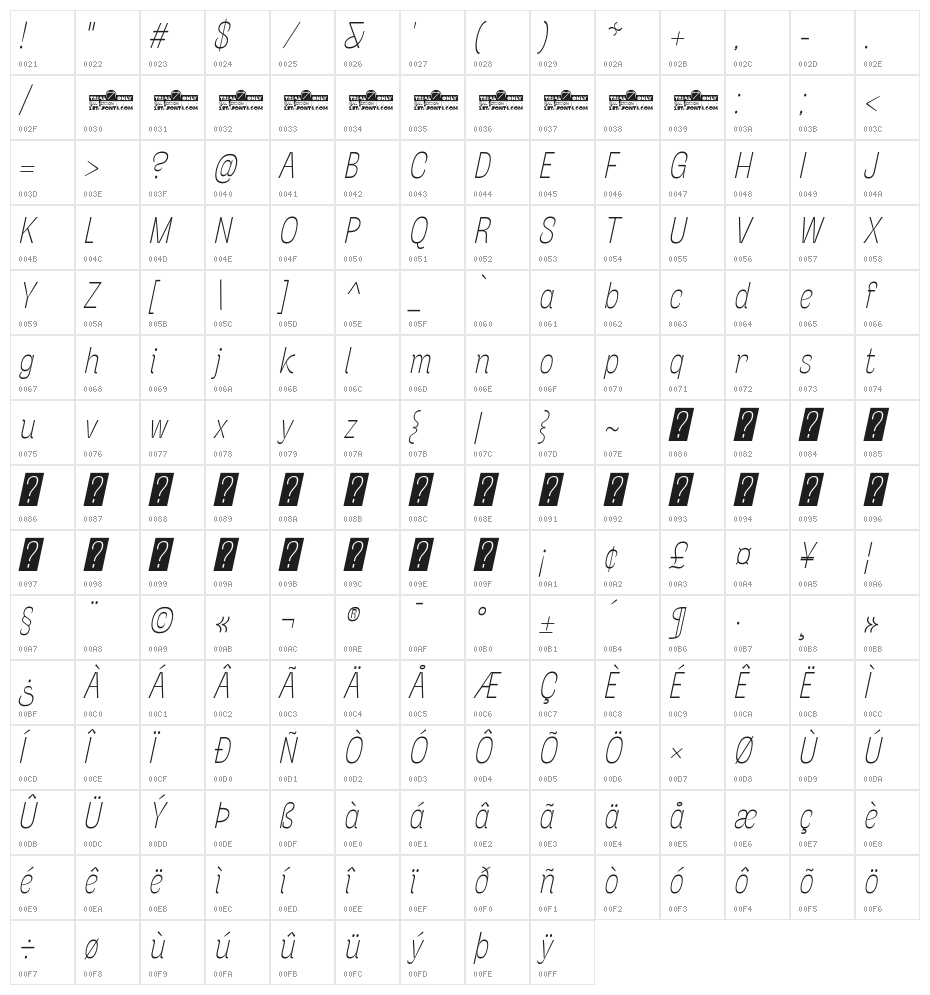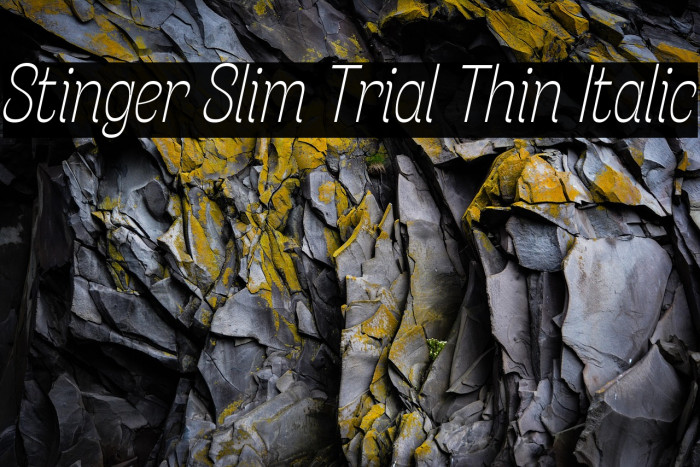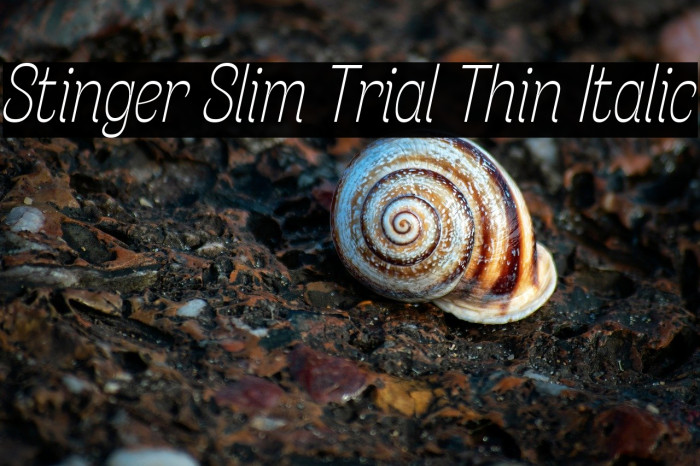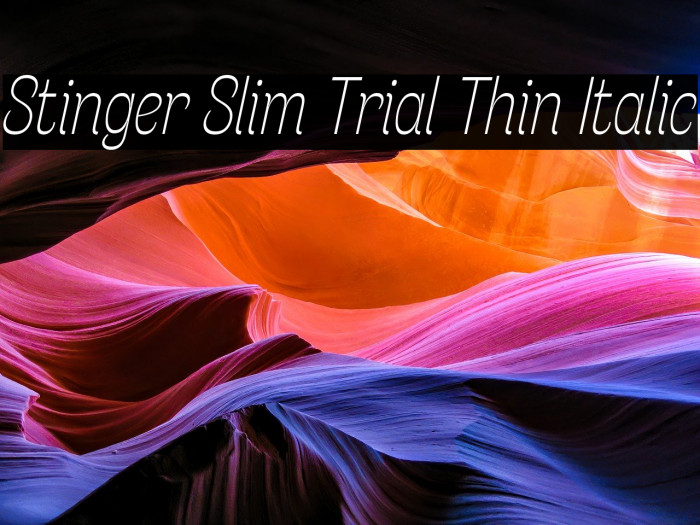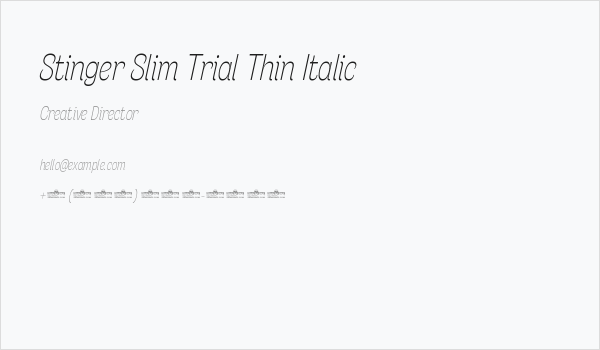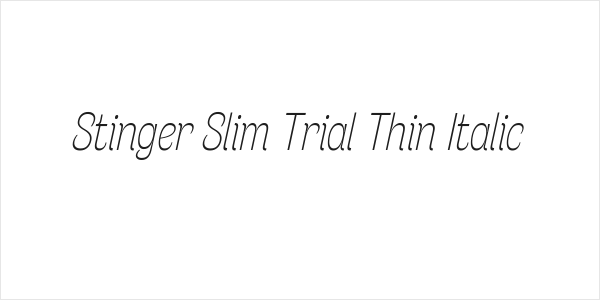
Stinger Slim Trial Thin Italic Font
Stinger Slim Trial Thin Italic Description
This font features a sleek, modern design with a thin, elegant structure. The characters are slightly italicized, giving them a dynamic and sophisticated appearance. The uppercase and lowercase letters maintain a consistent style, with smooth curves and sharp edges that enhance readability. The numerals and special characters are designed to complement the alphabet, maintaining the same thin and elongated form. This font is ideal for projects that require a contemporary and stylish look, offering a unique blend of simplicity and elegance.
Proposed ProjectsIdeal for fashion magazines, luxury branding, modern websites, and elegant invitations.